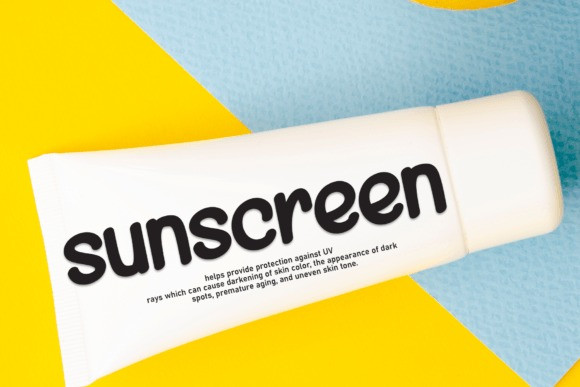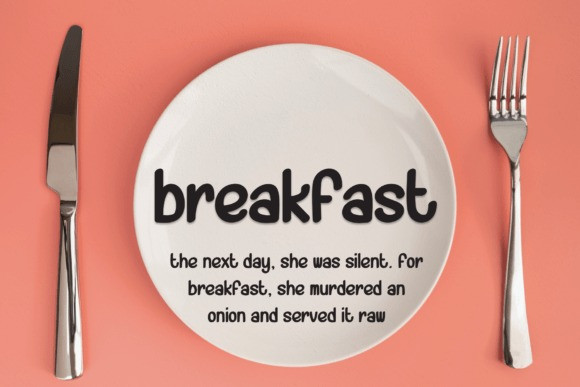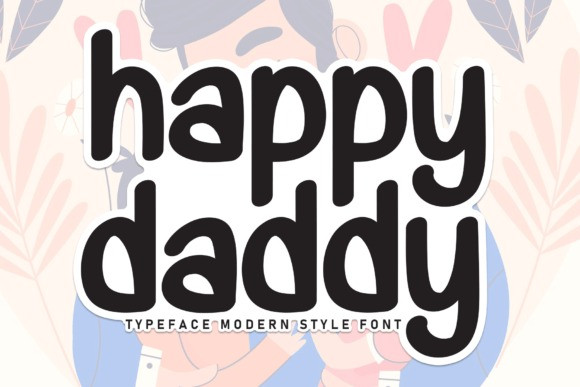
Happy Daddy Font
Happy Daddy Font is a sweet and friendly handwritten display font. Cute and fun, this font is ideal for writing wedding invitations, cards, or any other design that might need a fun touch!